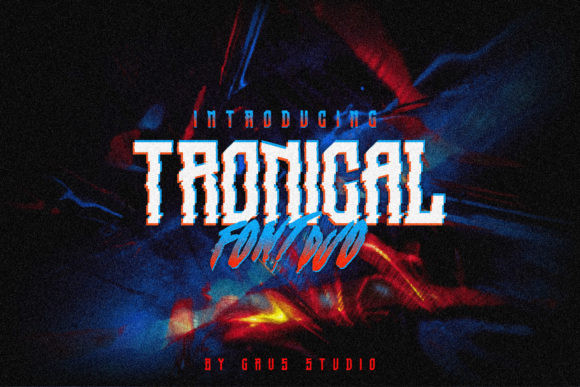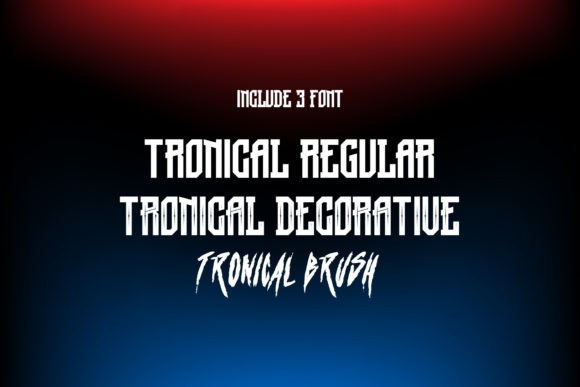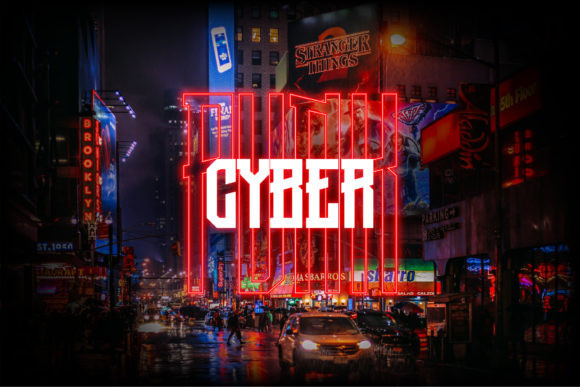
Tronical Font
Tronical is an incredibly distinct, rough textured and imposing display font. It sends out a strong vibe and it will most certainly make your design ideas stand out.